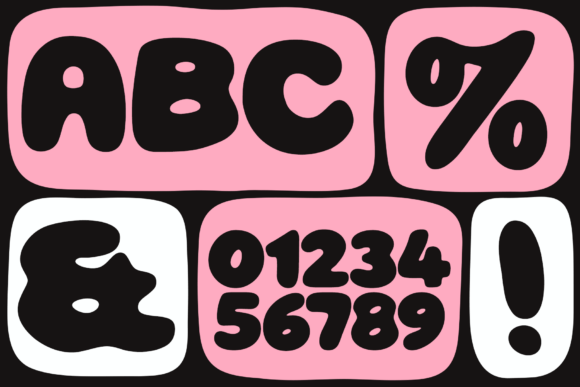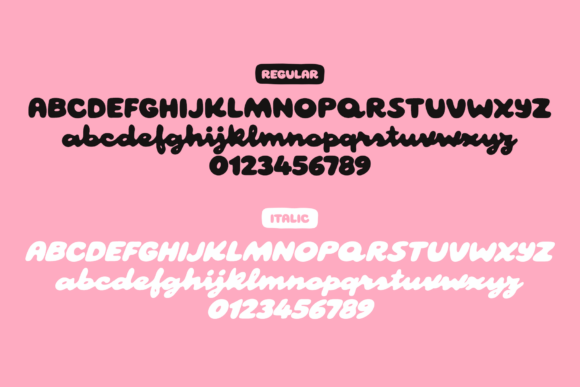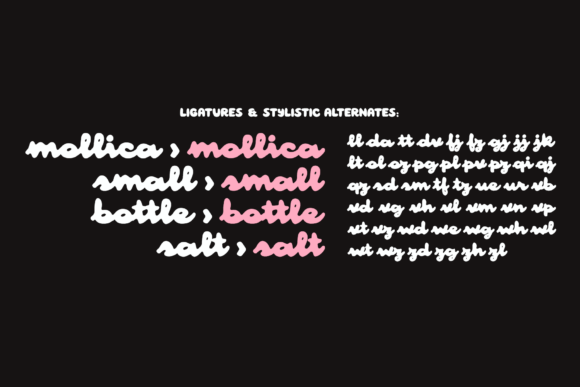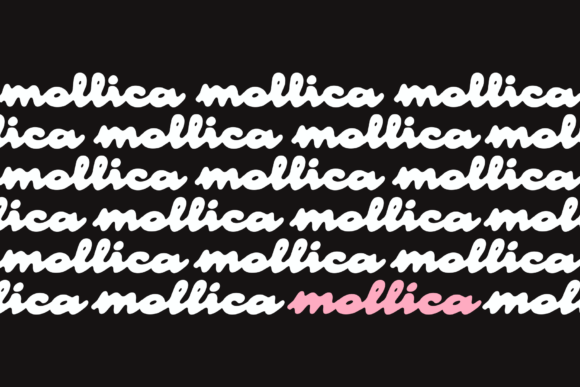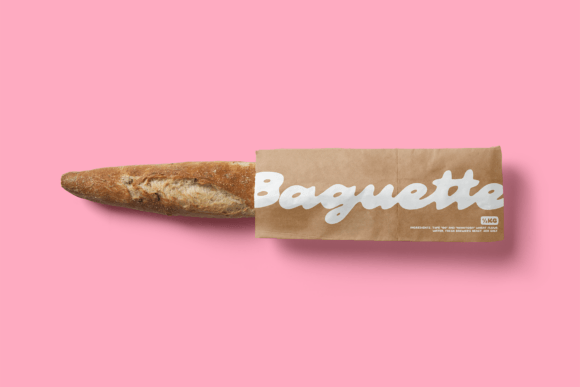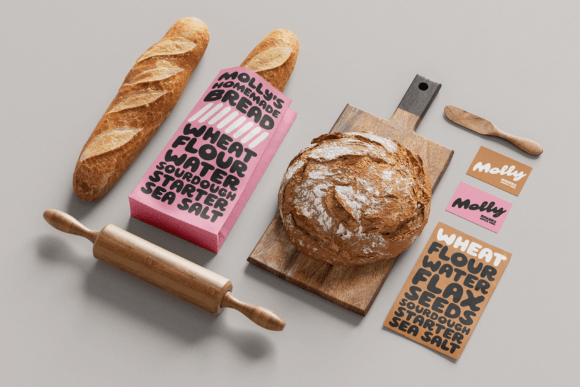
Introduction to Mollica Font
Have you ever found yourself reaching for a pen and paper to jot down a heartfelt message, only to realize that the right words need the perfect accompaniment – a font that exudes warmth and character? This is where Mollica Font comes in, a beautifully crafted handwritten font that brings an authentic, handcrafted quality to your creative projects.
Whether you’re working on a free download design or a high-quality branding project, Mollica Font is the perfect design resource to add a touch of softness and whimsy to your work. With its sweeping brushwork and natural, organic feel, this font is sure to elevate your designs and leave a lasting impression. In this article, we’ll delve into the world of Mollica Font and explore its features, versatility, and the value it brings to designers.
Mollica Font
- High-quality font designed for creative projects, ideal for use in logos, branding, and typography.
- Available in 5 different font styles, each with its unique characteristics and uses, making it a versatile design resource.
- Designed with a modern and elegant aesthetic, perfect for use in a variety of creative projects, from digital to print.
Honest Review: Mollica Font
I recently had the chance to work with the Mollica Font for a creative project, and I must say it’s been a delightful experience. The font is a high-quality design resource that offers a lot of flexibility for designers.
- ✨ The font’s design is clean and elegant, making it perfect for a variety of creative projects.
- ⚠️ The Mollica Font is not as extensive as some other font collections, which may limit its versatility in certain projects.
- ⚠️ Some users may find the font’s design to be a bit too minimalist for their taste.
Overall, I’m impressed with the Mollica Font’s quality and versatility. While it may have some limitations, it’s a great resource for designers looking for a high-quality, free download for their creative projects.
Mollica Font is commonly used in creative projects such as logos, business cards, and social media graphics. Its unique and high-quality design make it a popular choice among designers and artists.